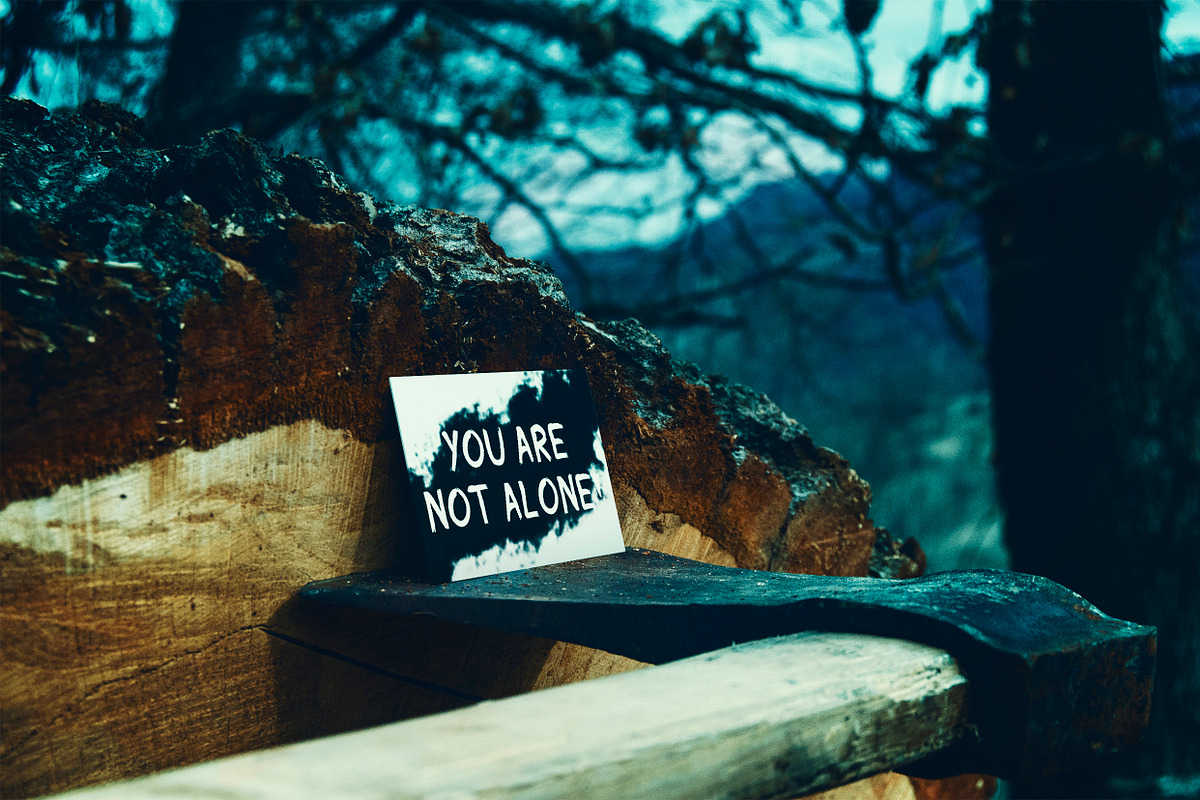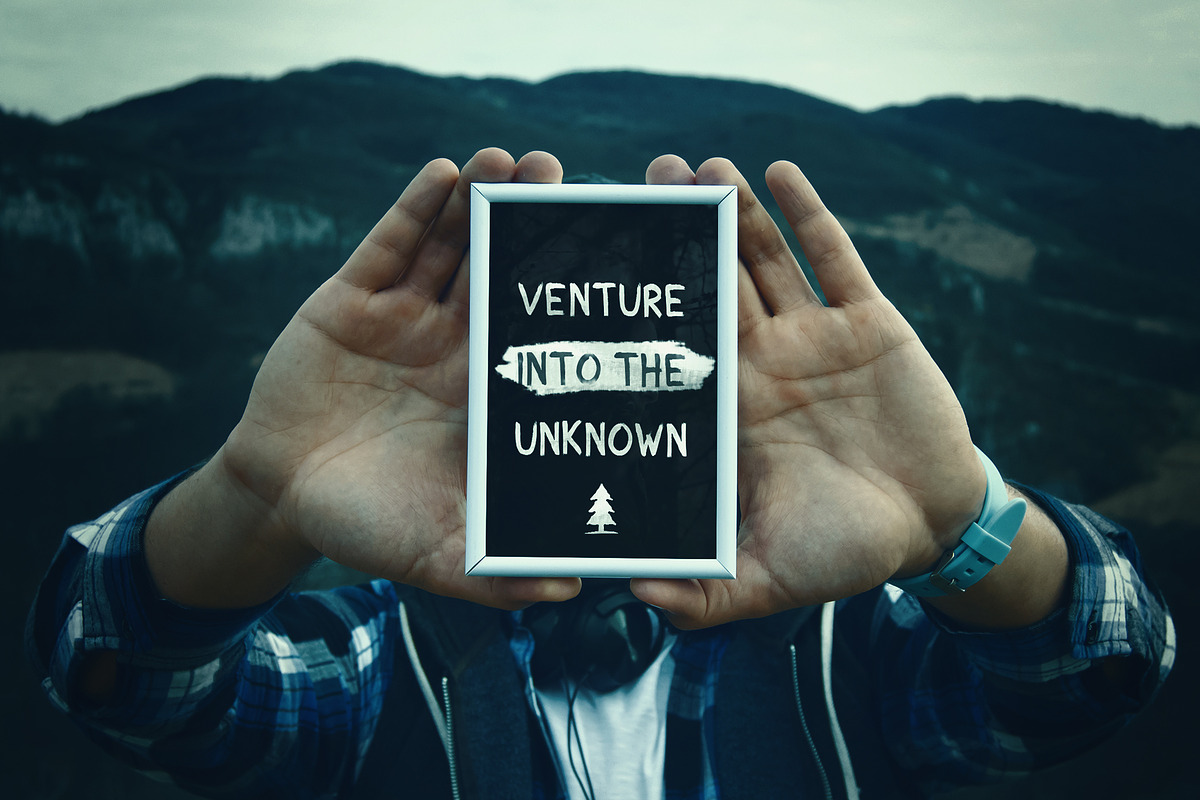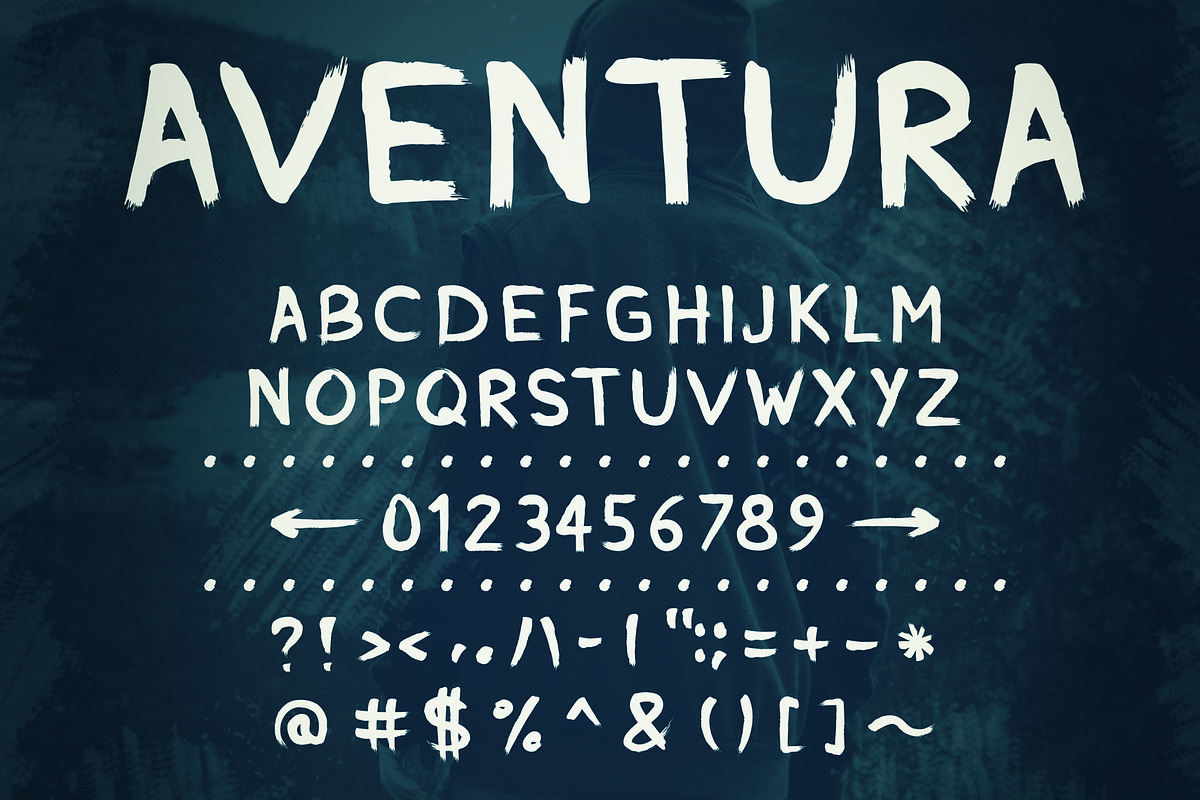
Aventura - Handmade Font
Aventura - Handmade Font by Brandspark is a font selected for branding, posters, packaging, typography.
Why Aventura - Handmade Font is worth a look
Aventura - Handmade Font by Brandspark fits naturally into Branding, posters, packaging, typography.